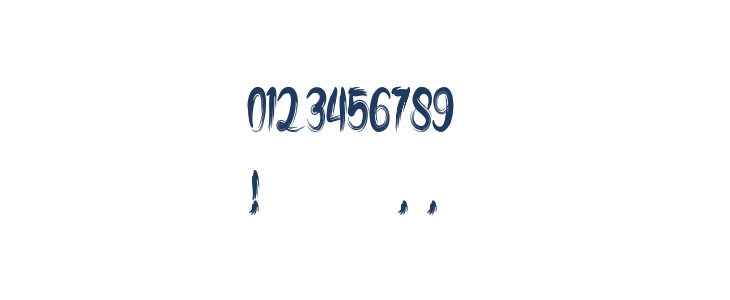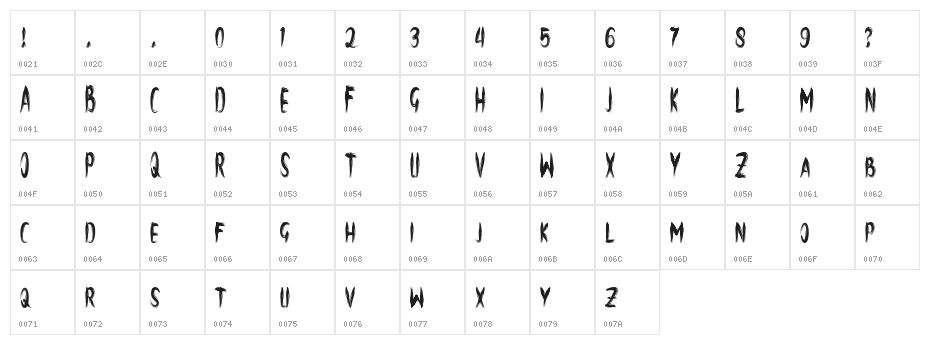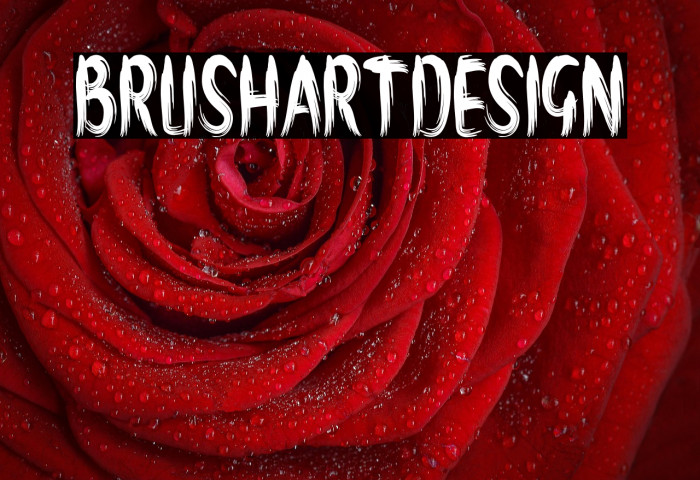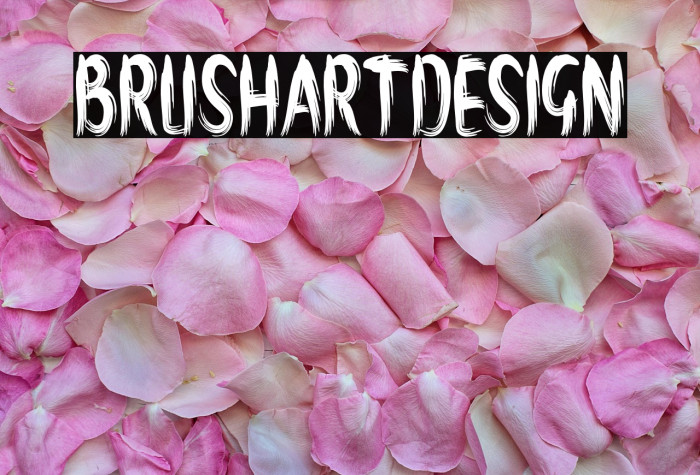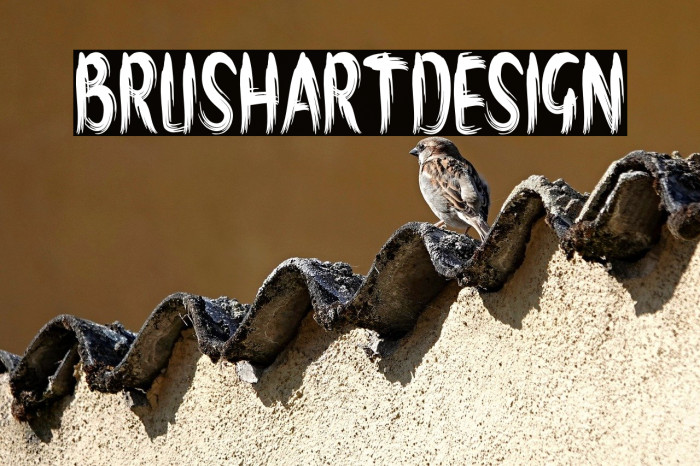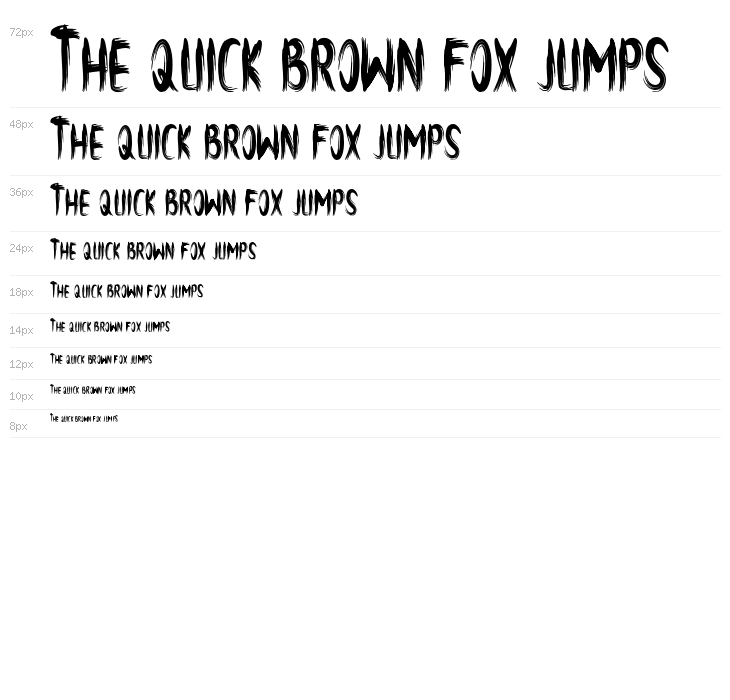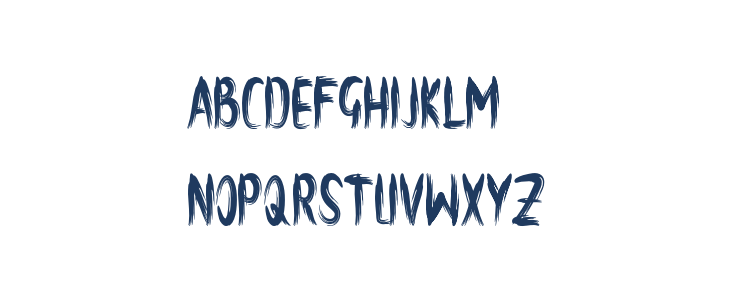
brush-artdesign Font
brush-artdesign Description
This font features a dynamic and artistic brushstroke style, giving each character a unique and expressive appearance. The strokes are bold and uneven, mimicking the natural flow of a paintbrush. The edges are rough and textured, adding to the handcrafted feel. This font captures an energetic and creative vibe, making it ideal for projects that require a personal and artistic touch. The uppercase and lowercase letters maintain a consistent style, while the numbers and special characters integrate seamlessly with the overall design.
Overall StyleArtistic
Use CaseLogos, Posters, Creative Branding
Proposed ProjectsIdeal for art-related projects, creative branding, posters, and invitations where a personal touch is desired.